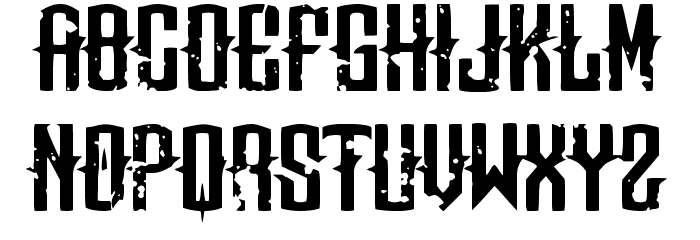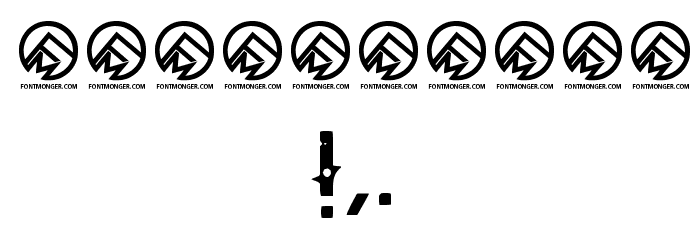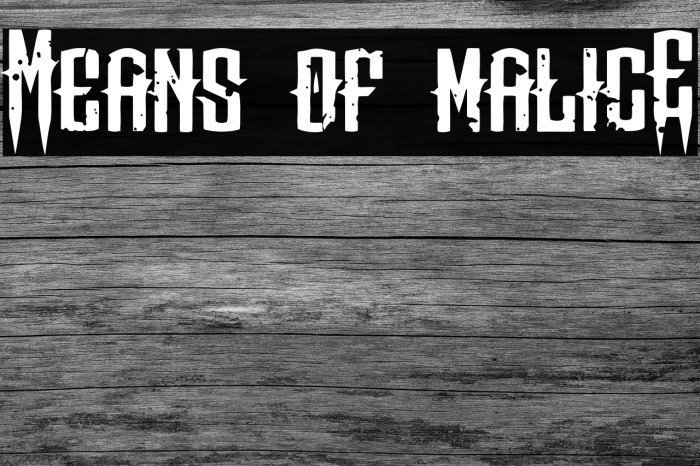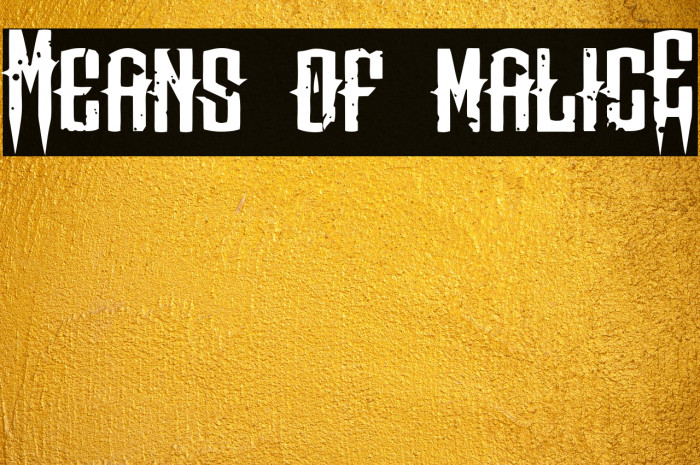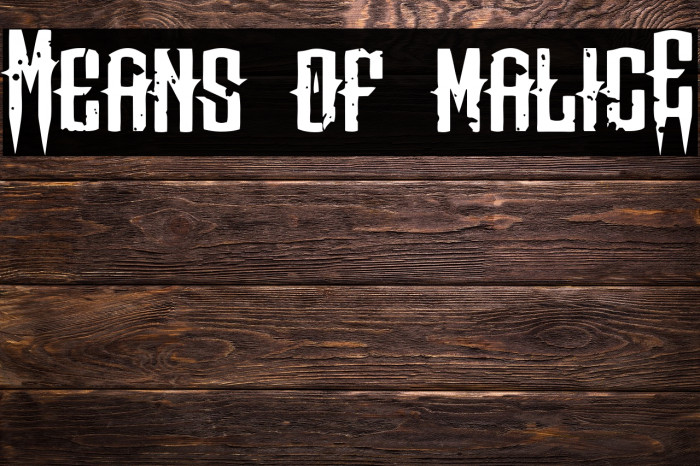
Means of malicE Font
This font features a bold and aggressive design with sharp, angular edges and a distressed texture that gives it a rugged, worn appearance. The uppercase letters are tall and narrow, with pointed serifs that add to the font's edgy and dynamic feel. The lowercase letters maintain the same sharpness and texture, creating a cohesive look across the alphabet. The numbers and special characters follow the same design principles, ensuring consistency throughout. This font's unique style makes it stand out, perfect for projects that require a strong, impactful visual presence.
A bold, distressed font with sharp, angular edges and a rugged appearance.
- Proposed Projects: Ideal for music album covers, movie posters, video game titles, and branding for edgy or alternative products.
- Overall Style: Modern, Edgy